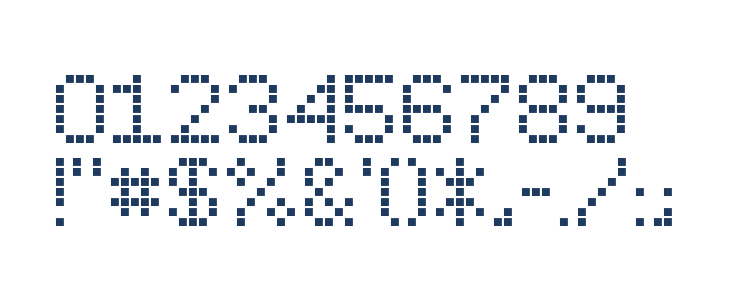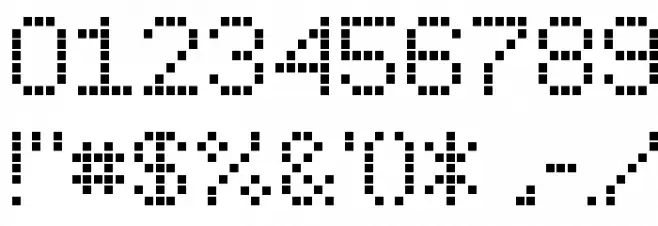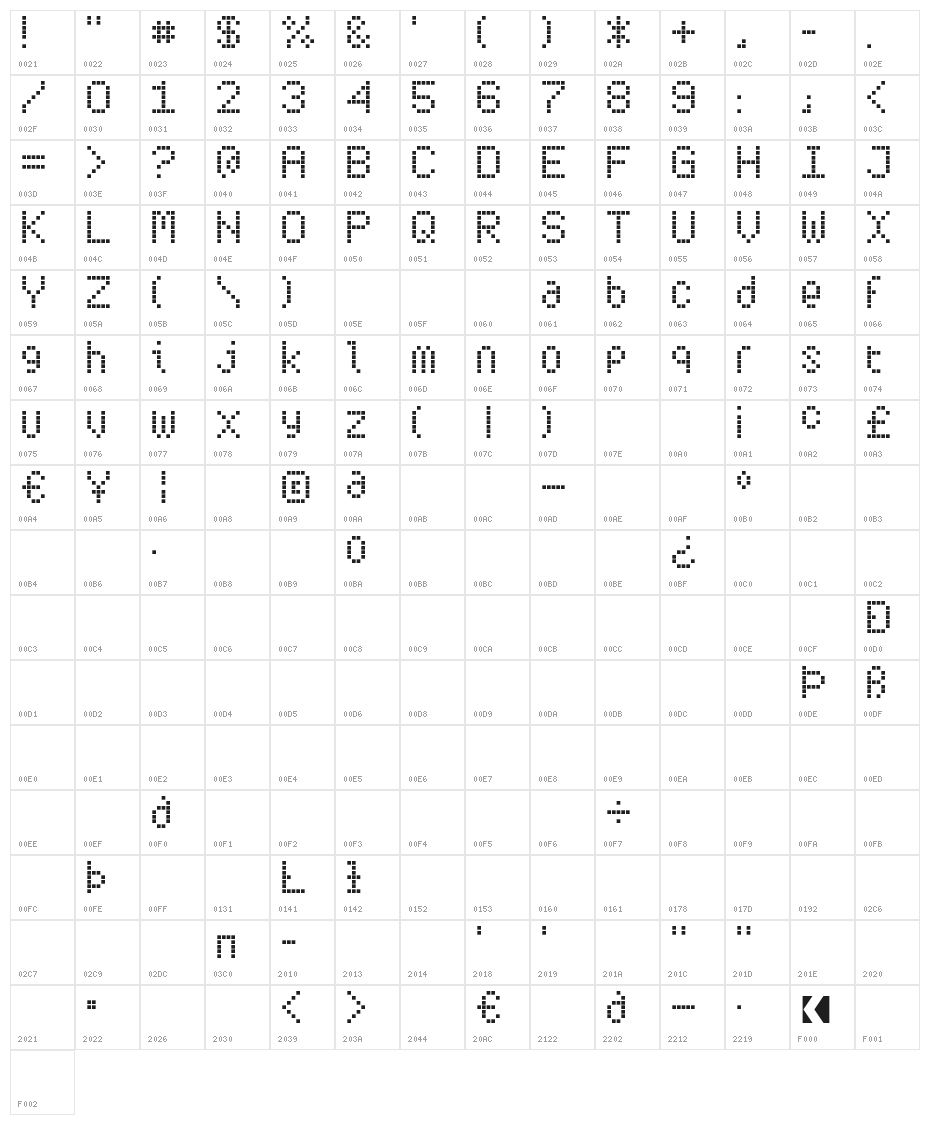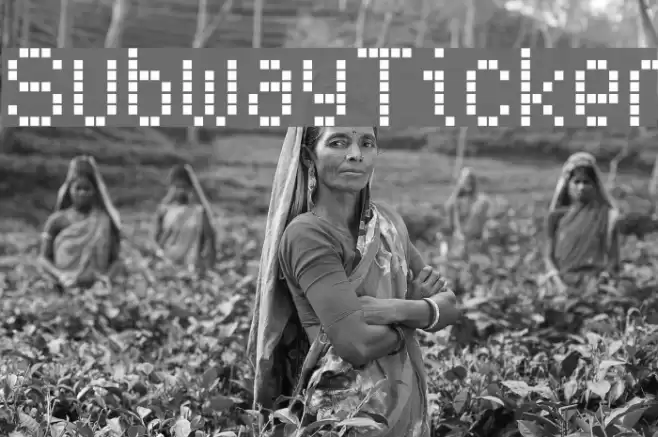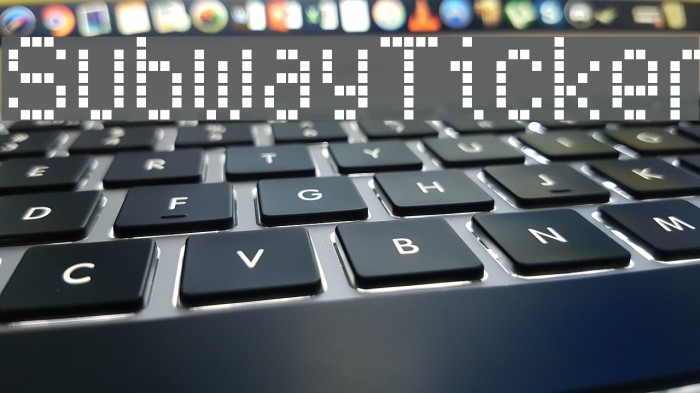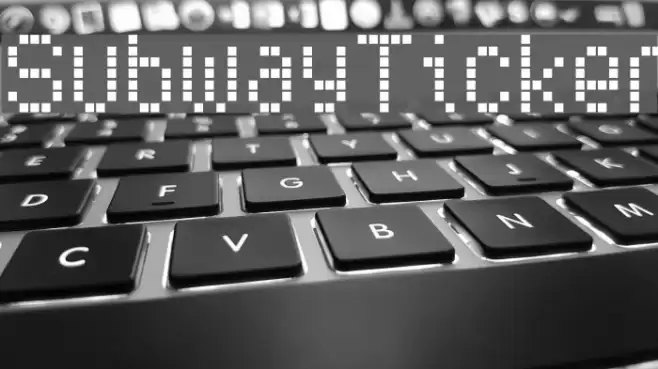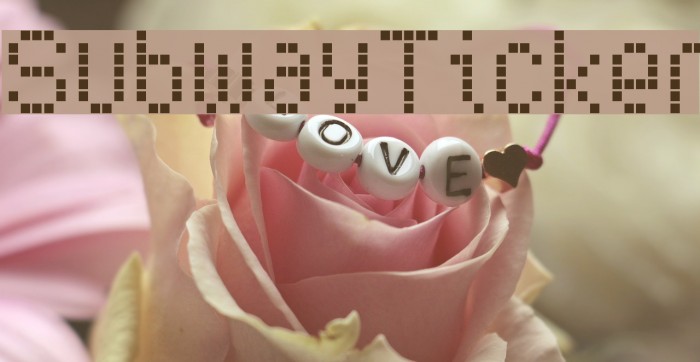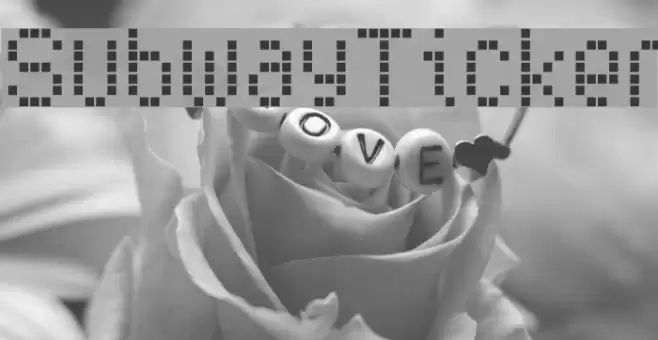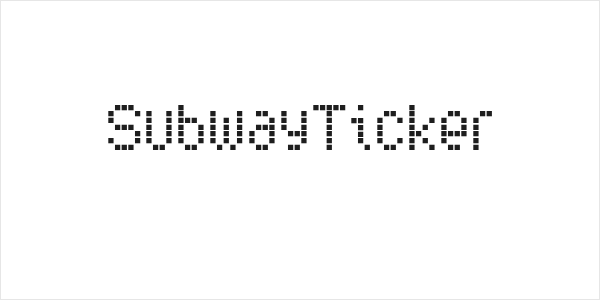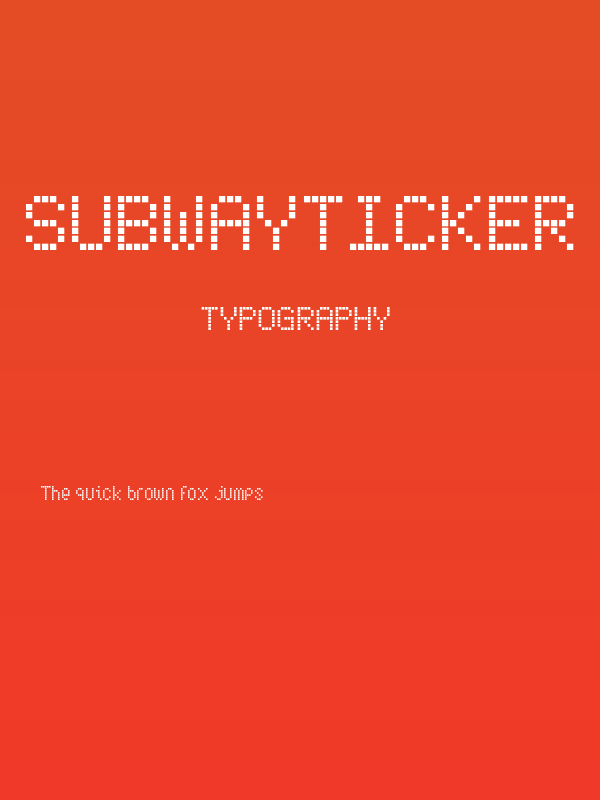
SubwayTicker Font
SubwayTicker Description
This font features a distinctive dot matrix design, reminiscent of old digital displays and ticker tapes. Each character is constructed from a grid of small, evenly spaced squares, creating a pixelated effect that is both retro and modern. The uppercase and lowercase letters maintain a consistent height, while the numerals and special characters are designed to match the overall aesthetic. This font's unique style makes it ideal for projects that require a digital or technological feel, such as retro-themed designs or tech-related branding.
| Use Case | Headlines, Logos, Digital Displays |
| Proposed Projects | Ideal for digital displays, retro-themed designs, tech branding, and video game graphics. |